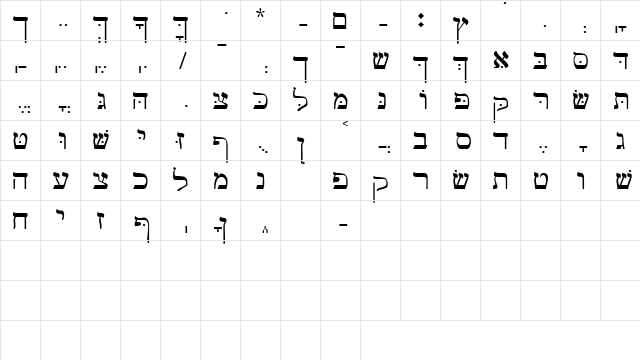
GalilSSK Regular
Design Context for GalilSSK Typeface
GalilSSK is a composed and adaptable typeface that performs quietly and consistently across a wide range of design contexts.